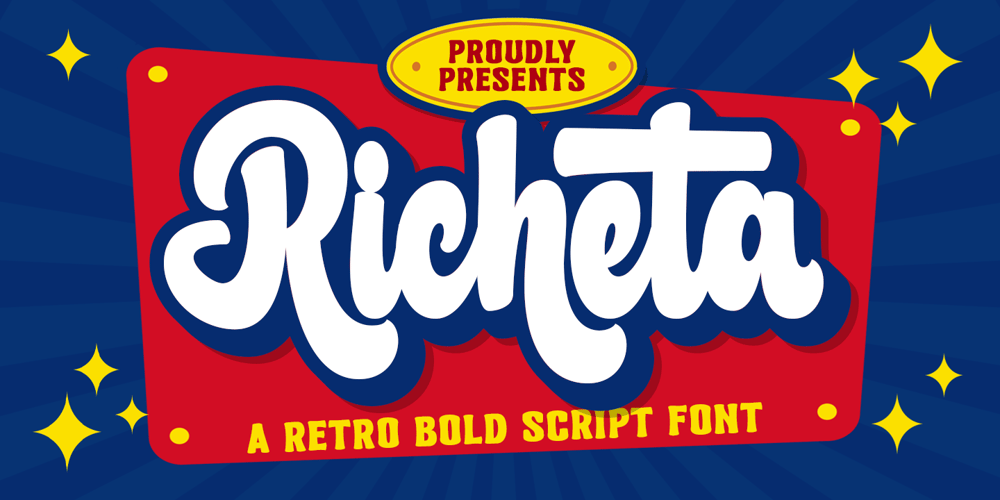
Richeta Font Family was designed by Bangkit Tri Setiadi and published by Blankids. Richeta contains 2 styles and family package options. Hello, awesome people! This time, we have a new font called Richeta, a retro bold script font combination by Blankids Studio.Richeta, a retro bold script font combination is made for any professional project branding, such as logotype, watermarks, poster, branding, promotions, product packaging, etc. Every letter has a playful retro style design. This font comes in 3 style font.Richeta font includes a full set of retro uppercase and lowercase letters, numerals and punctuation. This font has a retro style. See the previews above to get some inspiration on how to use them. Happy designing!